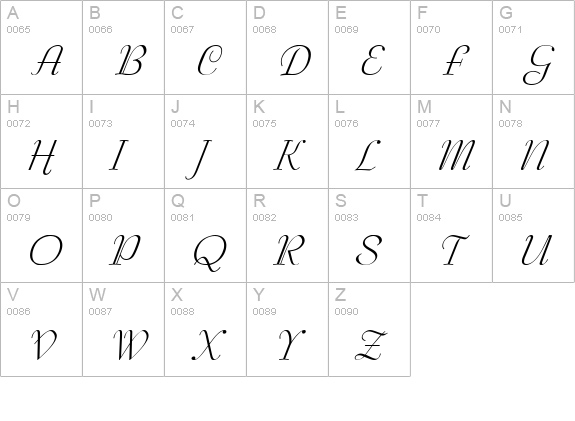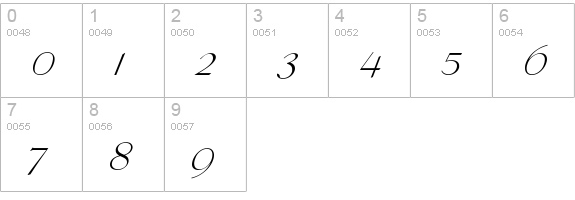
Safrole Oblique Font Details
Safrole Oblique is a distinctive, italic variant in the Safrole typeface family \xE2\x80\x94 well suited to design and typography projects.
Safrole Oblique font is a stunning and versatile typeface that exhibits a perfect balance between elegance and modernity. With its sleek and slanted design, this font adds a touch of sophistication to any project or design. This font's unique oblique angle gives it a dynamic and energetic appearance, making it an excellent choice for headlines, logos, posters, and other eye-catching designs. The smooth curves and sharp edges of Safrole Oblique font create a visual rhythm that captures attention and conveys a sense of motion. One of the most remarkable aspects of Safrole Oblique font is that it is free to download at FontsMarket.com. This means that you can enhance your creative endeavors without having to worry about any additional costs. Whether you are a professional designer or a hobbyist, having access to high-quality fonts like Safrole Oblique font can greatly enhance the visual impact of your work. The versatility of Safrole Oblique font allows it to be used across various design applications, from digital media to printed materials. Its legibility and clarity make it suitable for both small and large text sizes, ensuring that your message is delivered with utmost precision. Furthermore, Safrole Oblique font offers an extensive character set, including uppercase and lowercase letters, numerals, punctuation marks, and special symbols. This wide range of characters enables you to fully express your creativity and customize your designs according to your specific needs. Whether you are designing a website, creating a branding package, or working on a personal project, Safrole Oblique font will undoubtedly elevate the visual appeal of your work. Download this remarkable font for free at FontsMarket.com and unlock a world of possibilities for your design endeavors.